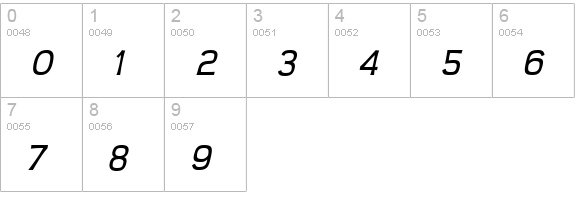
Teen Italic is a distinctive, italic variant in the Teen typeface family \xE2\x80\x94 well suited to design and typography projects.
Introducing Teen Italic, a captivating and stylish font that exudes youthful energy and contemporary flair. Designed specifically for teenagers and young adults, this font is the perfect choice for any project that demands a touch of modernity and sophistication. With its sleek and slanted letterforms, Teen Italic effortlessly captures the essence of youthful enthusiasm and rebellion. Each character is meticulously crafted to create a harmonious balance between elegance and edginess, making it an ideal choice for a wide range of design applications, including logos, posters, social media graphics, and more. One of the most remarkable features of Teen Italic is that it is available absolutely free! Yes, you read that right. This fantastic font can be freely downloaded from FontsMarket.com, allowing you to bring your creative visions to life without breaking the bank. Whether you're working on a personal project or a professional endeavor, Teen Italic will undoubtedly elevate your designs to new heights. Its versatility and contemporary appeal will captivate your audience and leave a lasting impression. So why wait? Unlock your creative potential with Teen Italic. Download this incredible font for free at FontsMarket.com and let your imagination run wild. Get ready to make a bold statement and stand out from the crowd with this extraordinary typeface.